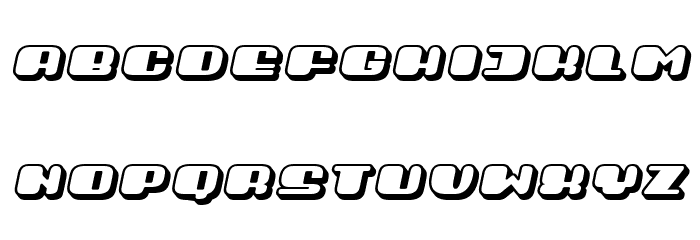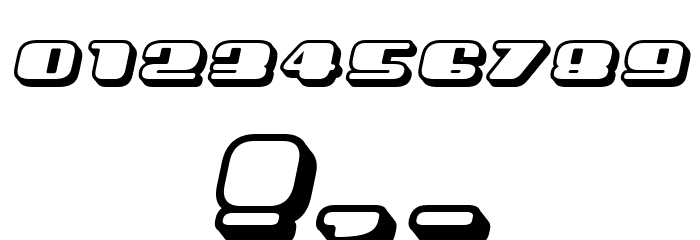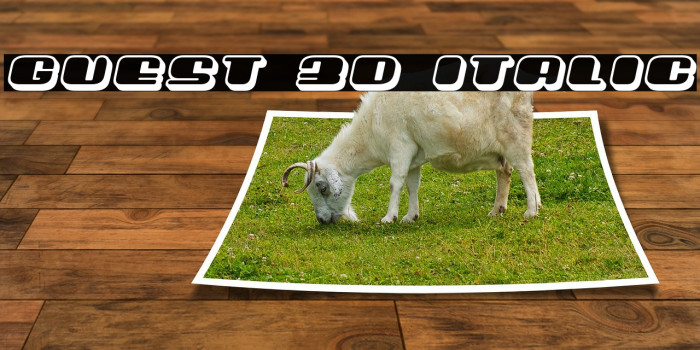
Guest 3D Italic Font
This font features a bold, three-dimensional appearance with a distinct italic slant, creating a dynamic and eye-catching look. The characters are outlined with a thick black border, enhancing the 3D effect and providing a sense of depth. The interior of each letter is filled with a solid color, contrasting sharply with the outline. This design gives the font a playful yet impactful presence, making it suitable for attention-grabbing headlines or logos. The rounded edges of the letters add a touch of softness, balancing the boldness of the overall style. The numbers and special characters maintain the same stylistic features, ensuring consistency across all elements.
A bold, 3D italic font with thick outlines and rounded edges.
- Font: Guest 3D Italic